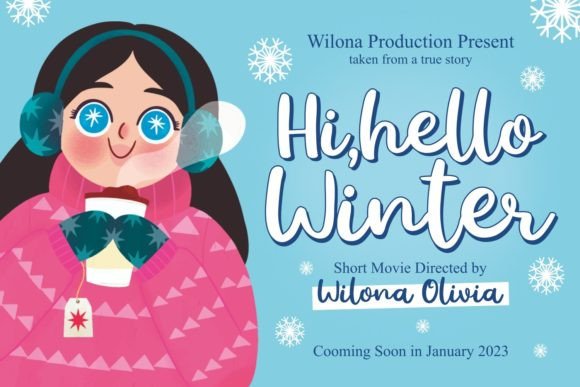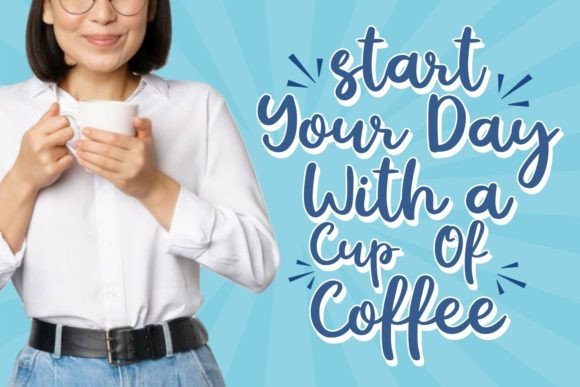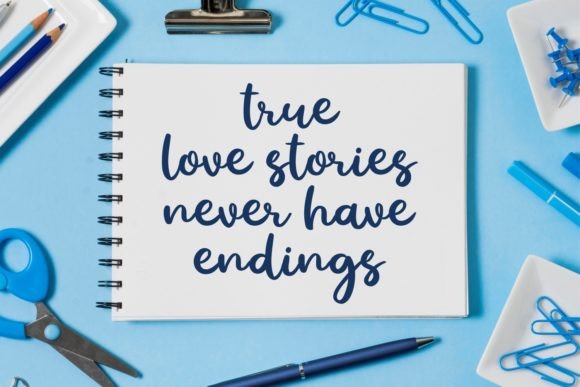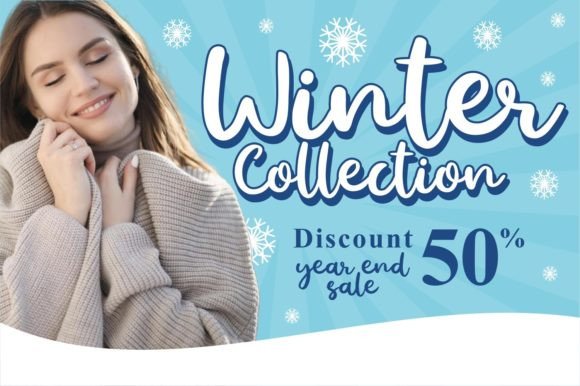
Hello Snowie Font
A Beautifully Rounded Handwritten Font
The Hello Snowie Font is a beautifully rounded handwritten typeface designed to add elegance and charm to any project. Its smooth curves and fluid strokes make it perfect for designs that need a personal, inviting touch. Whether you’re working on invitations, business cards, branding materials, or advertisements, the enhances your design with a stylish and unique feel that’s both modern and timeless.
Perfect for Invitations and Special Events
For invitations and special events, the Hello Snowie Font is an excellent choice. Whether you’re creating wedding invitations, birthday cards, or event flyers, this font brings a warm, friendly touch to your designs. Its rounded, handwritten style adds a sense of personalization and elegance, setting the tone for a memorable occasion. Whether it’s for a formal wedding or a casual party, this font creates a welcoming atmosphere for your guests.
Ideal for Business Cards and Branding
For business cards and branding, the Hello Snowie Font offers a distinctive and approachable style that helps your business stand out. Whether you’re working on logo designs, business cards, or branding materials, this font combines elegance with legibility. Its rounded strokes ensure that your text remains clear while adding a unique, creative feel to your branding, making it perfect for businesses that want to appear both professional and personable.
Great for Advertisements and Marketing Materials
The Hello Snowie Font is ideal for advertisements and marketing materials. Whether you’re designing online ads, flyers, posters, or social media graphics, this font’s approachable design ensures your content is eye-catching and engaging. Its modern yet friendly appearance makes it perfect for product promotions, events, and creative campaigns that require a touch of elegance and charm.
Versatile for Various Design Projects
The Hello Snowie Font is incredibly versatile, making it suitable for a wide range of design projects. Whether you’re creating invitations, greeting cards, logos, website content, or branding materials, this font adds a sophisticated, rounded touch to your work. Its personalized, handwritten style ensures your designs feel unique and tailored to your specific needs, while its clean lines keep the text legible and clear across various applications.
Elegant, Friendly, and Legible
Despite its handwritten design, the Hello Snowie Font is elegant and easy to read. The smooth rounded strokes ensure that your text is clear and easy to understand, even when used for longer passages or smaller sizes. Whether you’re working on headlines, captions, or body text, this font offers the perfect balance of creativity and readability, making it perfect for a variety of design needs.
Add Elegance and Charm to Your Designs with Hello Snowie Font
If you’re looking for a beautifully rounded, elegant handwritten  to enhance your designs, the Hello Snowie Font is the perfect choice. Whether you’re working on invitations, branding materials, advertisements, or greeting cards, this font adds a personalized and charming touch to your work. Let the help you create memorable, elegant designs that leave a lasting impression.